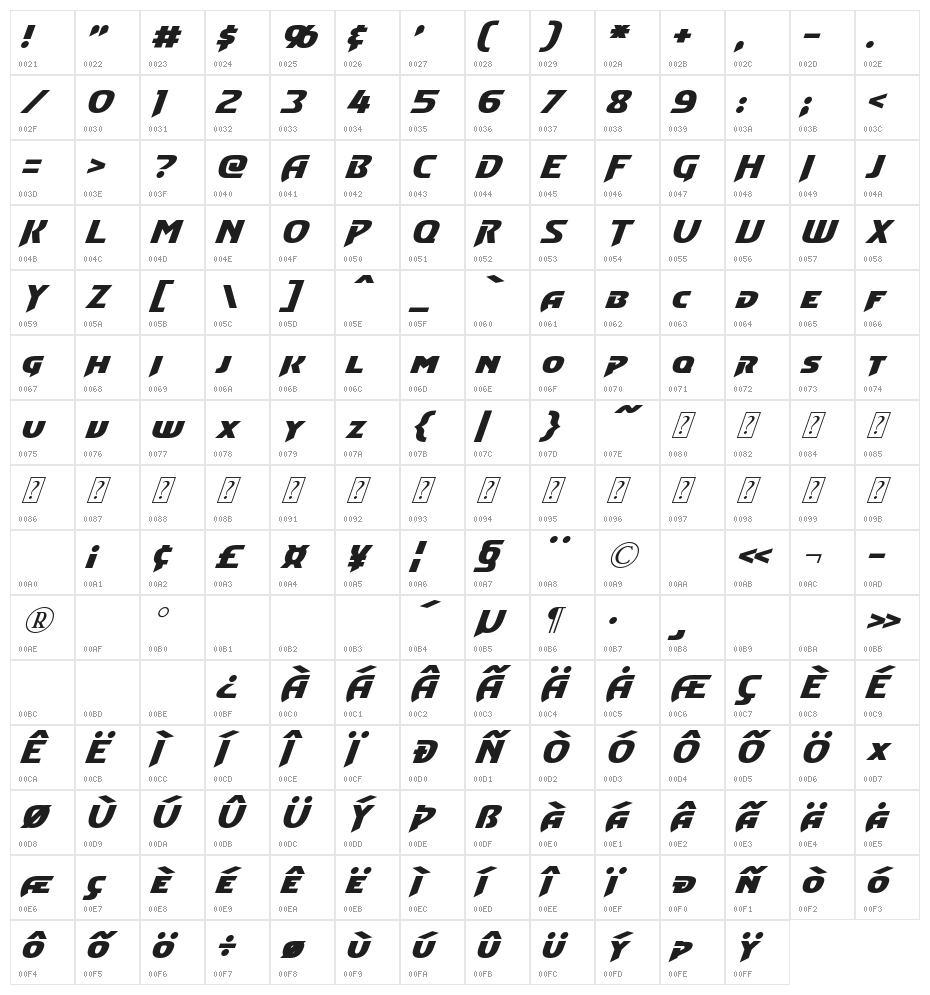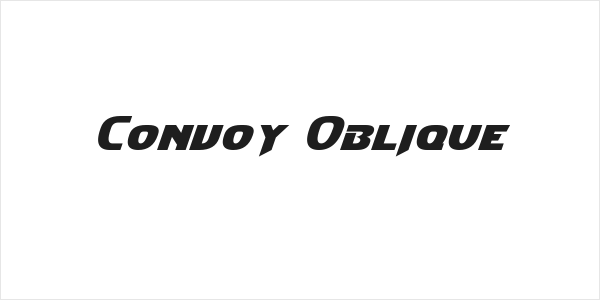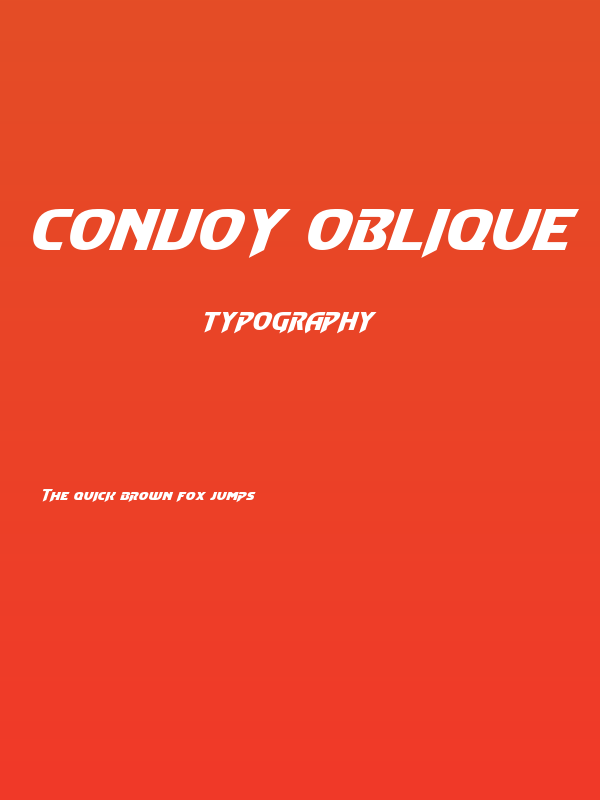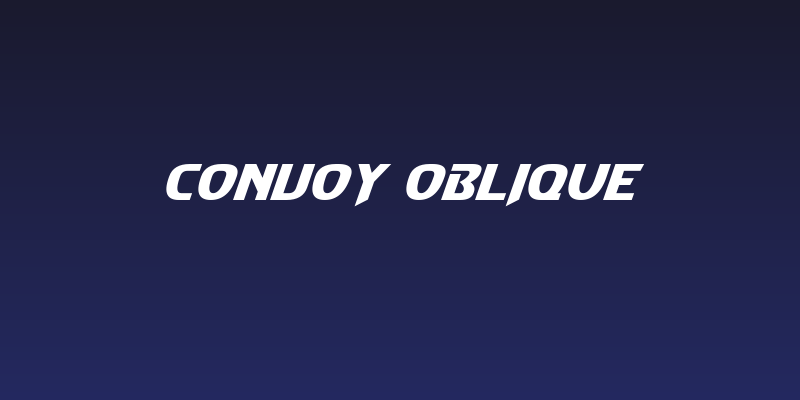
Convoy Oblique Font
Convoy Oblique Description
This font features a bold and dynamic style with a strong oblique slant, giving it a sense of motion and energy. The characters are designed with sharp angles and a futuristic aesthetic, making it ideal for projects that require a modern and edgy look. The uppercase and lowercase letters maintain a consistent style, while the numerals and special characters complement the overall design. The font's unique appearance makes it suitable for attention-grabbing headlines and logos.
| Proposed Projects | Ideal for sports branding, automotive designs, video game titles, and tech-related logos. |